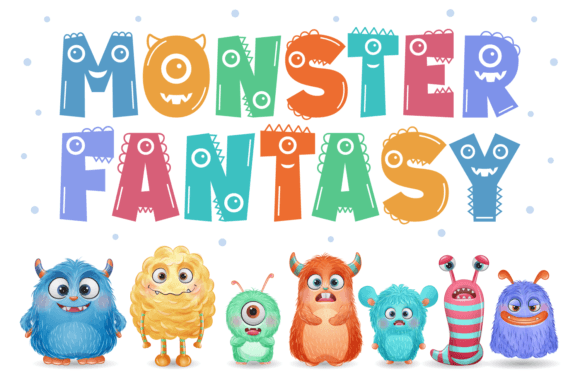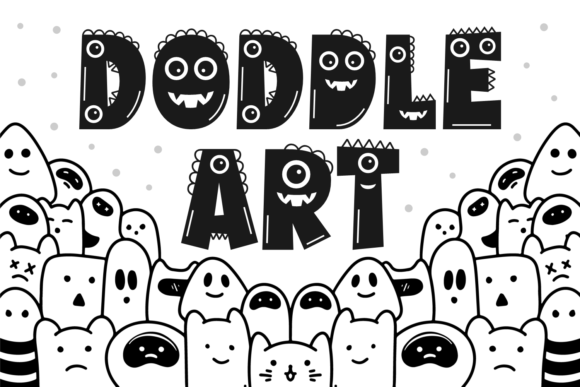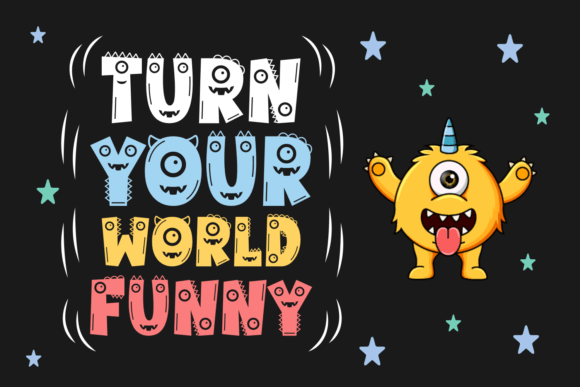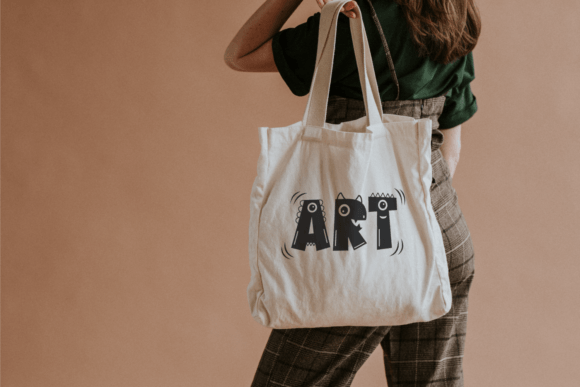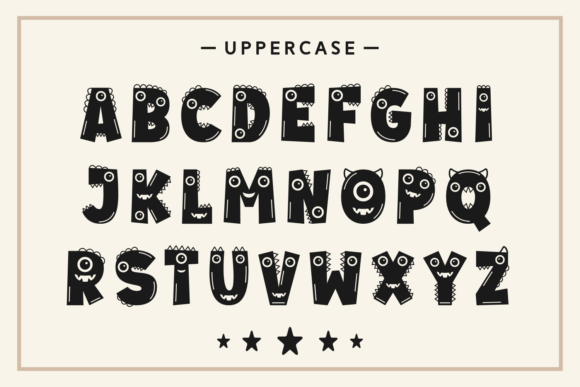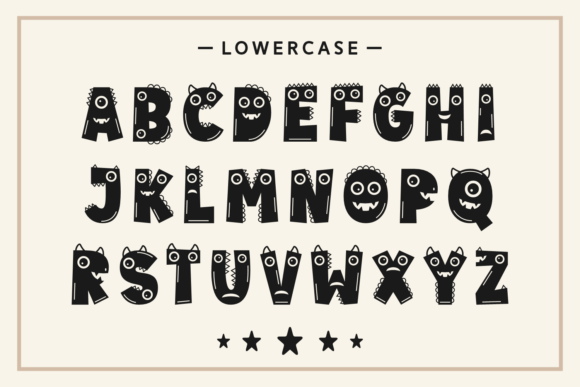
Introduction to Chucky Monster Font
Have you ever stared at a blank canvas, wondering where to start your next creative project? Perhaps you’re designing party invitations, crafting banners, or working on a fun wallpaper design. As a designer, you know that the right font can make all the difference in bringing your ideas to life. That’s where the Chucky Monster Font comes in – a delightful, expressive monster font that’s sure to add a playful touch to your designs.
Whether you’re a seasoned designer or just starting out, the Chucky Monster Font is a valuable resource that’s easy to use and customize. With its high-quality design and transparent background, you can seamlessly integrate it into your projects. And the best part? It’s available for free download, making it an accessible design resource for anyone looking to add a little whimsy to their work.
Key Features of Chucky Monster Font
- High-quality design: The Chucky Monster Font is designed to provide a unique and eye-catching look for creative projects, making it an excellent design resource.
- Unique characteristics: The Chucky Monster Font features a bold, playful design with a mix of uppercase and lowercase letters, making it perfect for adding a touch of personality to creative projects.
- Perfect for horror-themed projects: The Chucky Monster Font is ideal for horror-themed projects, such as movie posters, video game titles, and Halloween-themed designs.
Honest Review: Chucky Monster Font
I recently had the chance to work with the Chucky Monster Font in a creative project, and I was excited to see how it would perform. As a design resource, I appreciate high-quality fonts that can add a unique touch to any design.
Here are some of the things that work well with the Chucky Monster Font:
- It has a transparent background, which makes it easy to use in any design without worrying about background noise.
- It’s a great option for designers who want to add a playful and fun touch to their work.
- The font may not be suitable for all types of design projects, such as professional or corporate work.
- The font is a bit limited in terms of character sets and styles, which may not be ideal for designers who need a lot of flexibility.
- The font may not be as scalable as some other high-quality fonts, which could affect its appearance at larger sizes.
Overall, I was pleasantly surprised by the Chucky Monster Font. While it may have some limitations, it’s a great option for designers who want to add a fun and playful touch to their work.
The Chucky Monster Font is a popular design resource that can be used in various creative projects, including logos, posters, and social media graphics. It’s perfect for designers who want to add a playful and creative touch to their designs.